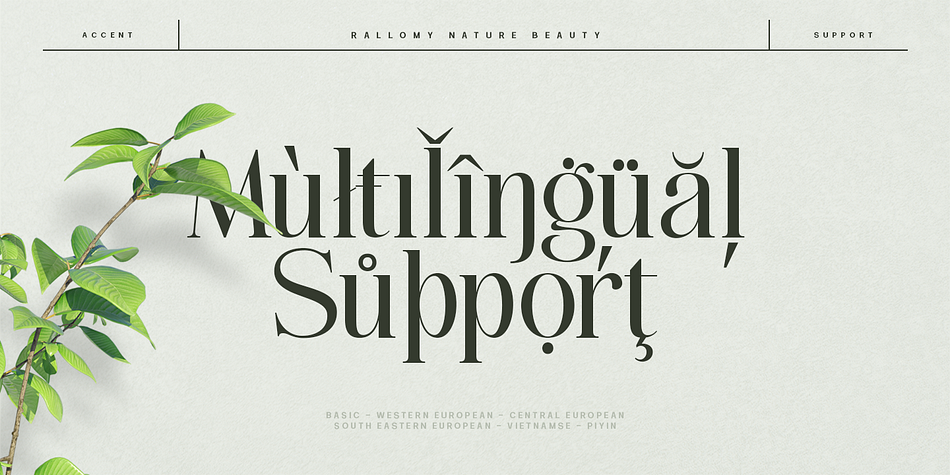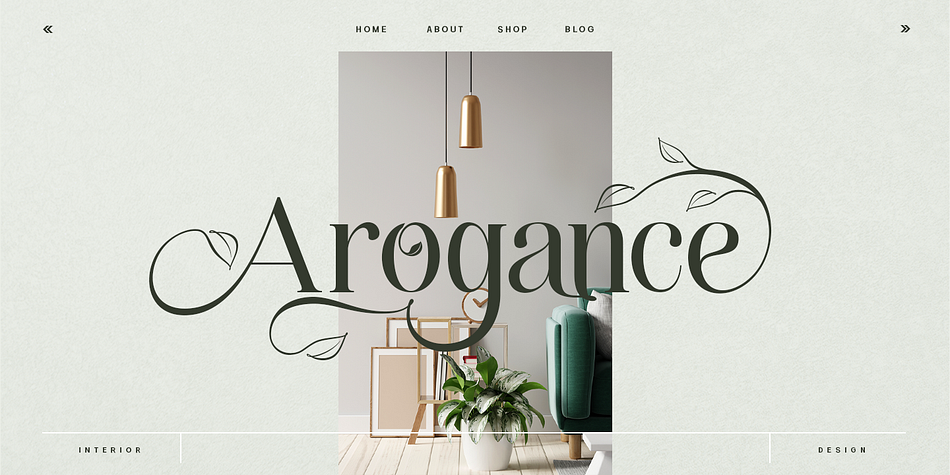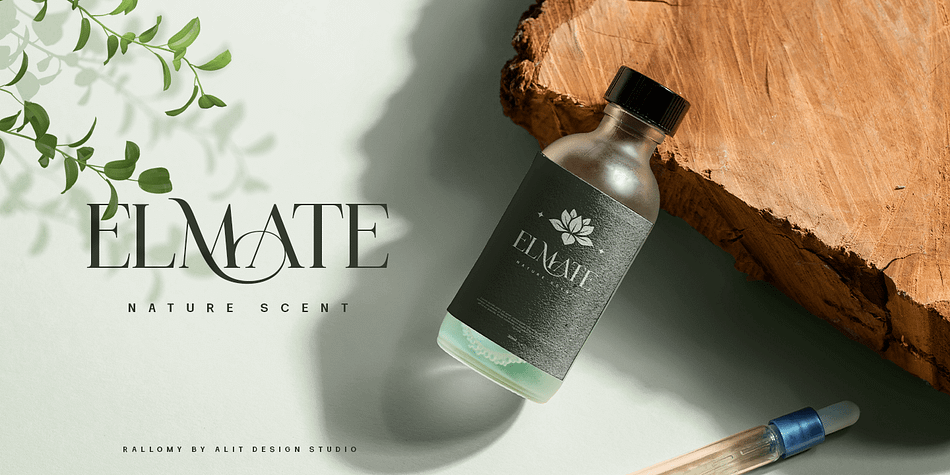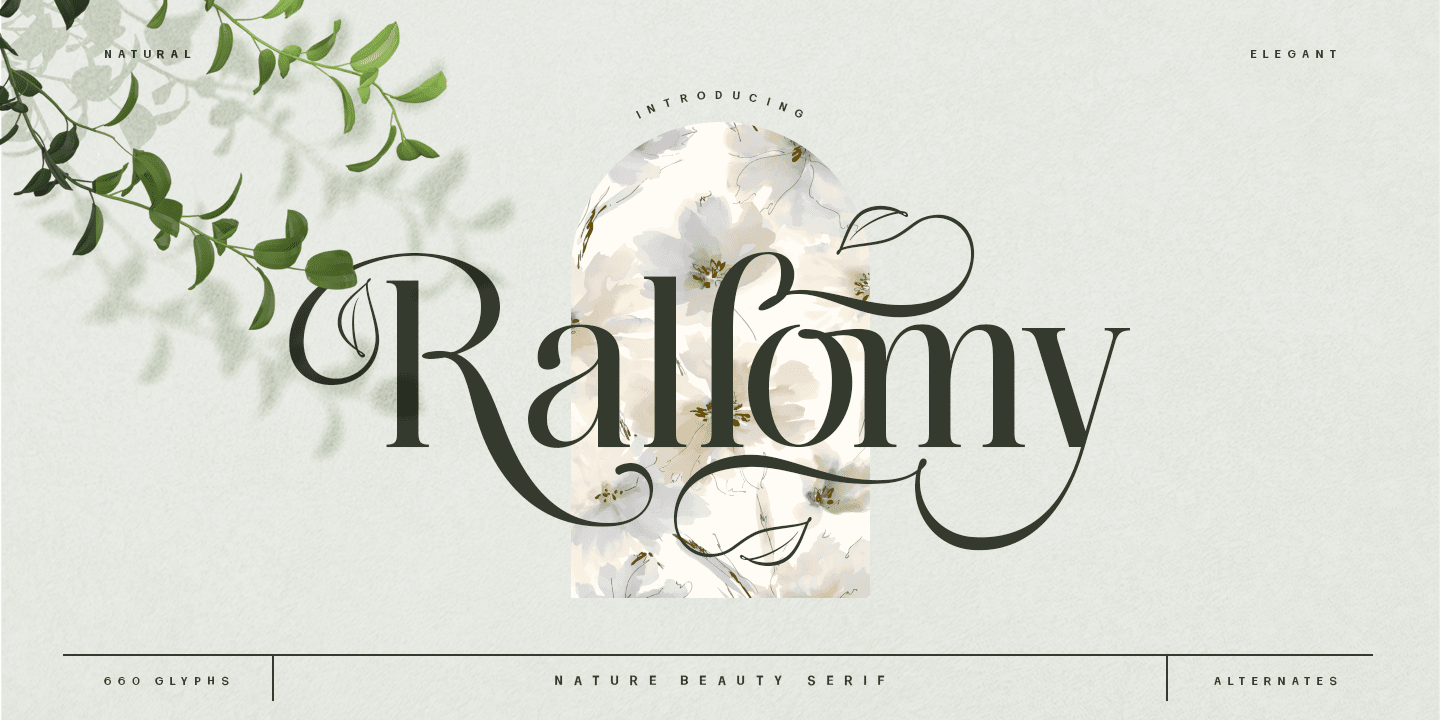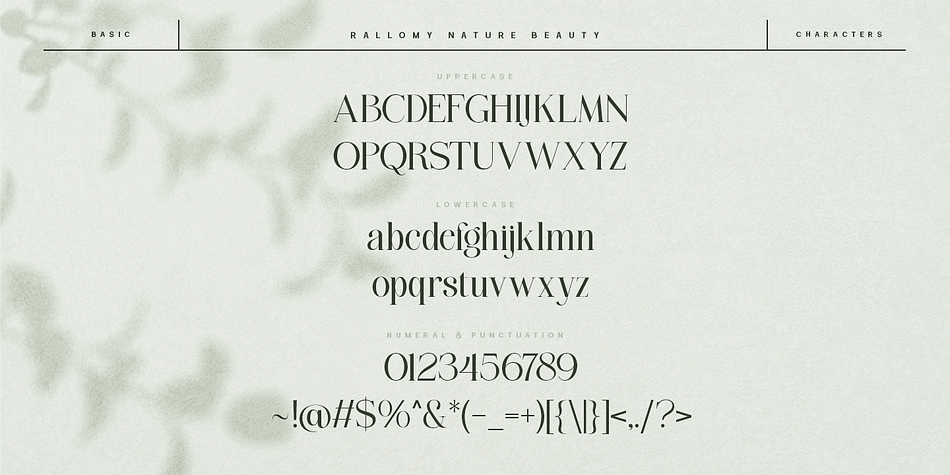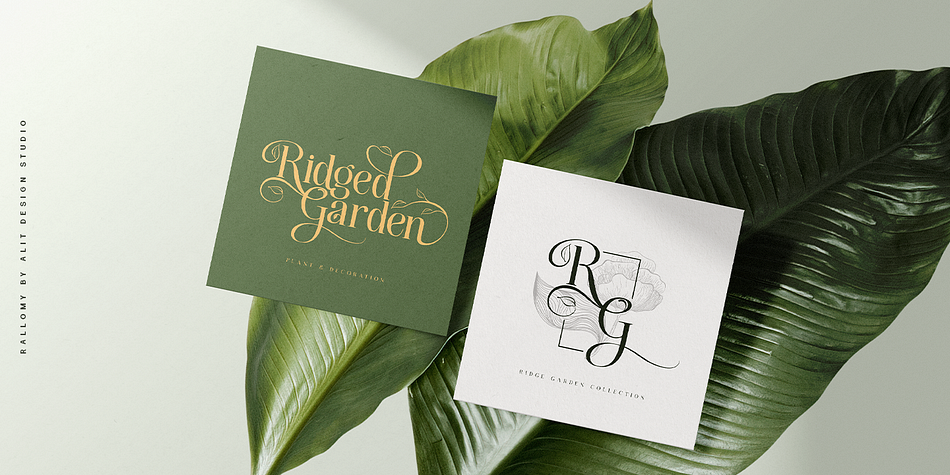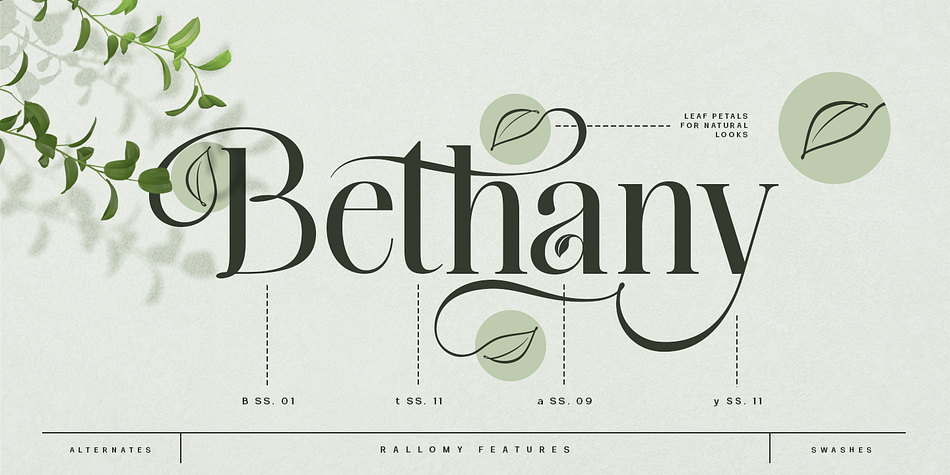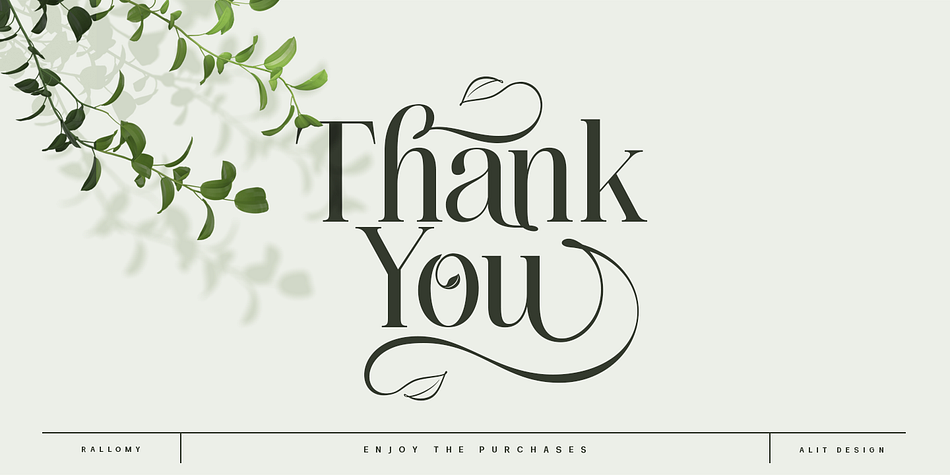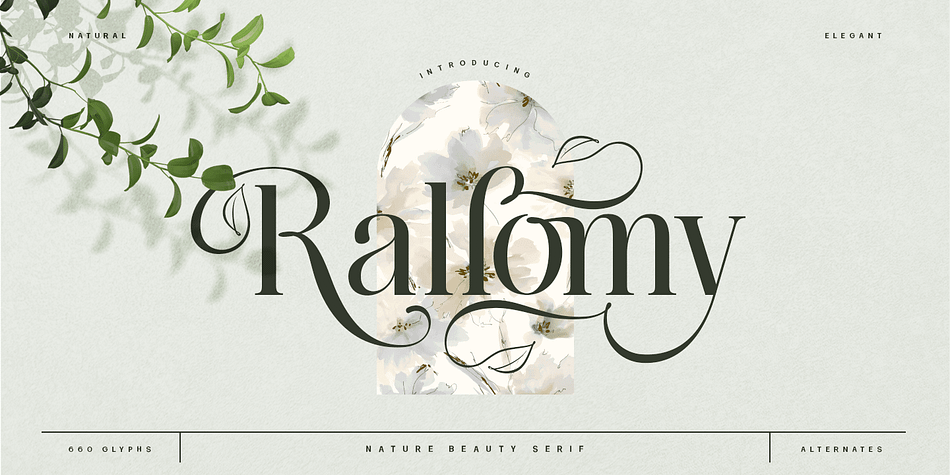
Rallomy
Designed by Alit Suarnegara, Rallomy is a display serif and serif font family published by Alit Design.
Rallomy is a serif font designed with the concept of nature’s beauty in mind. It has a dynamic alternating swash featuring a leaf symbol and a ligature system that ensures a harmonious combination of characters. This font is ideal for design projects that aim to capture the essence of nature.
Rallomy has 660 characters and supports Unicode and multiple languages, including PUA encoding, making it a versatile font for various design projects. With its nature-inspired design, elegant serifs, and modern look, Rallomy is highly suitable for designs with a natural, elegant, and modern concept.
Language Support : Latin, Basic, Western European, Central European, South European,Vietnamese.